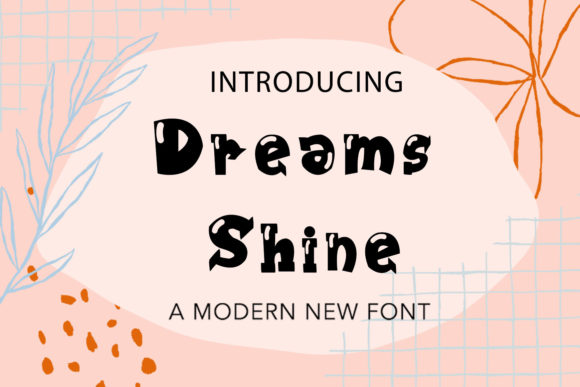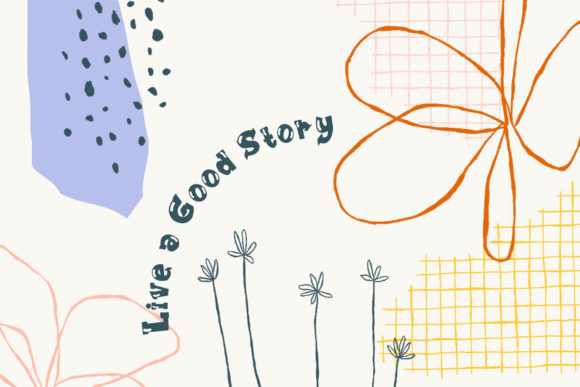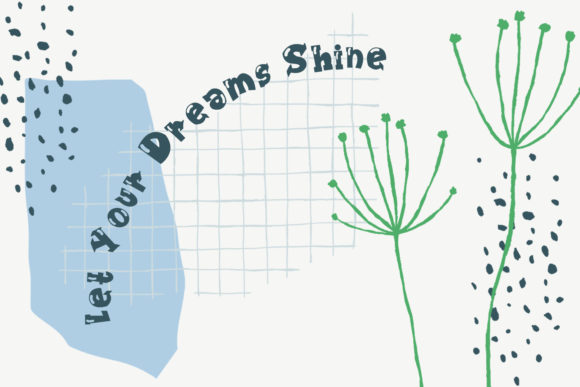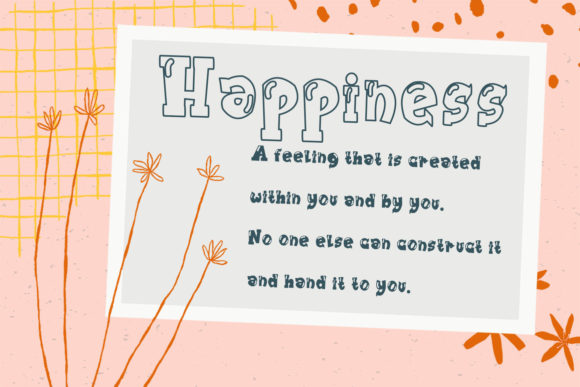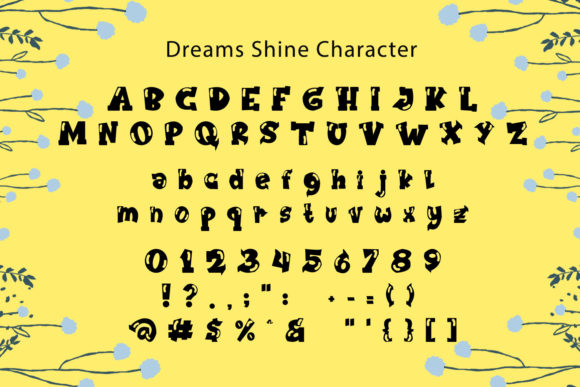
About Dreams Shine Font
“Dreams Shine”: Infuse Fun and Friendliness with this Display Font
Introducing “Dreams Shine,” a delightful and friendly display font designed to bring a touch of joy to your creative projects. Whether you’re working on cartoon-related designs, children’s games, quotes, titles, brand names, book covers, posters, or any creation that calls for a playful vibe, “Dreams Shine” is the perfect choice to infuse fun and friendliness into your designs.
The standout feature of “Dreams Shine” is its fun and friendly demeanor, making it an excellent companion for projects aimed at capturing the imagination of a younger audience. The playful strokes and whimsical details of this display font contribute to an overall sense of joy, creating a visual experience that resonates with positivity and creativity.
The versatility of “Dreams Shine” allows it to adapt to various design contexts. Imagine using it for cartoon characters, where the font’s personality complements the playful nature of the illustrations. For children’s games, the font becomes a visual element that enhances the overall fun and engagement. Additionally, for quotes, titles, and brand names, “Dreams Shine” adds a touch of charm and uniqueness, making your content stand out.
Book covers and posters benefit from the lively energy of “Dreams Shine,” creating a vibrant and inviting visual impact. The font’s ability to convey a sense of joy makes it suitable for projects that aim to evoke positive emotions and create a memorable experience for the audience.
In conclusion, “Dreams Shine” is more than just a font; it’s a design asset that brings a sense of fun and friendliness to your creative endeavors. Whether you’re working on projects for children or infusing joy into various design applications, let “Dreams Shine” be the font that adds a playful touch to your creations. Explore its possibilities for cartoon designs, games, quotes, titles, and more, and watch as it elevates your designs with a delightful and whimsical charm.